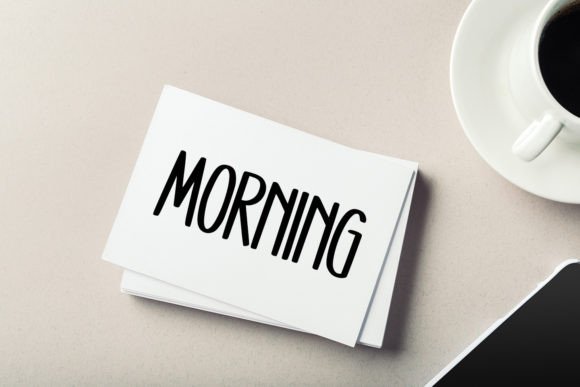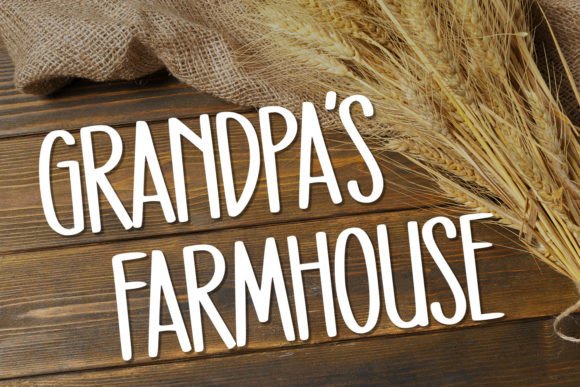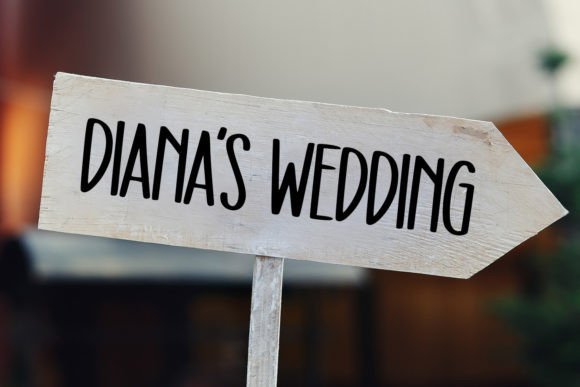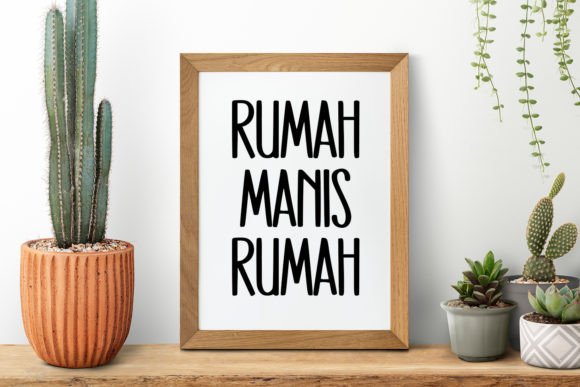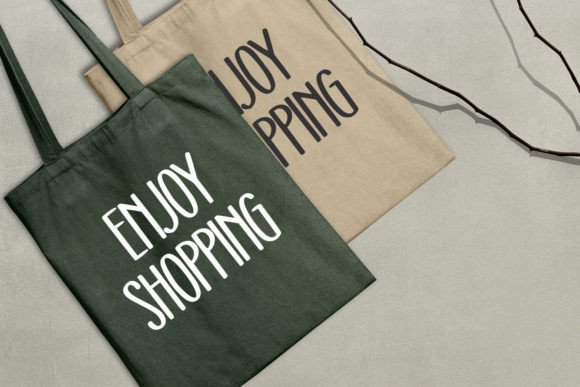
Introduction to Homeschool Font
Homeschool is a fun and friendly handwritten font.
Not too thin and not too thick, balanced and varied, this font was designed to enhance the beauty of your projects .